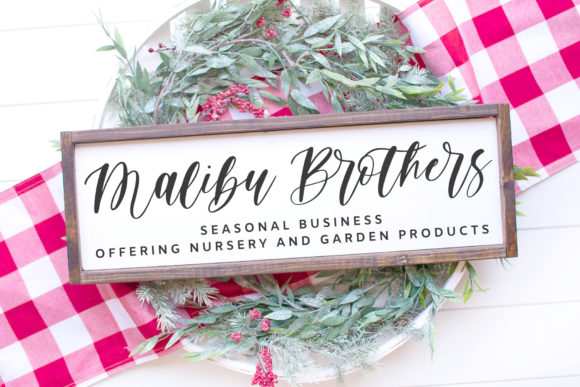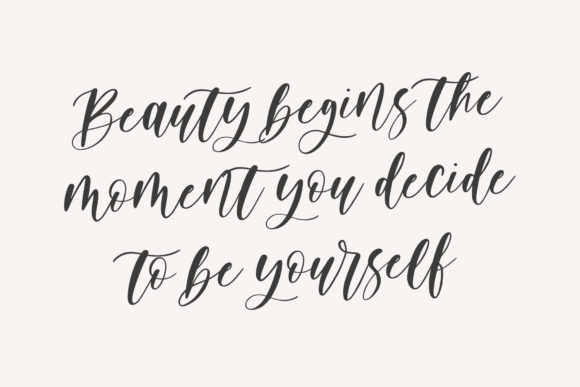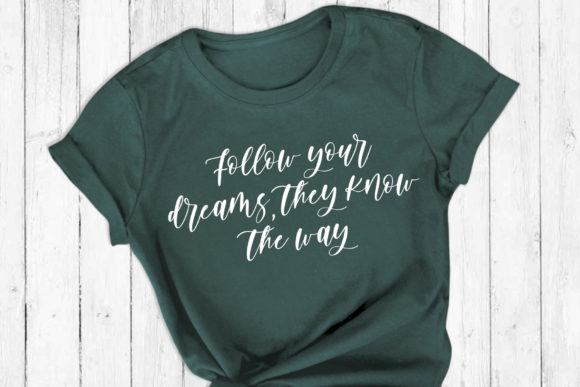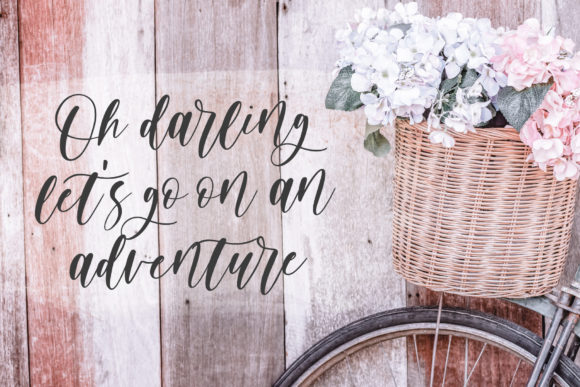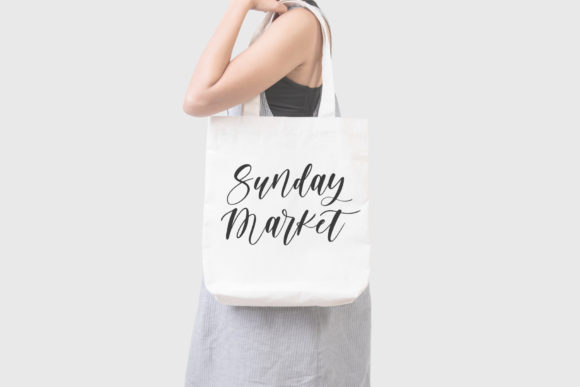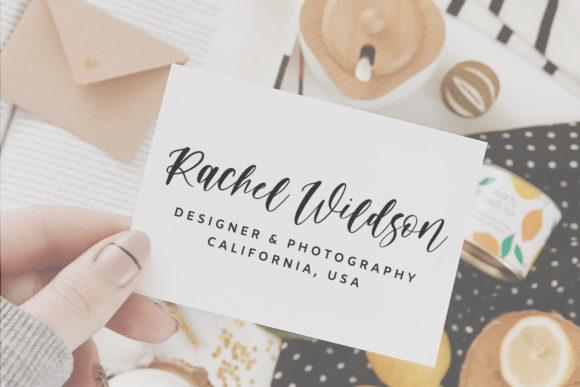
Introduction to Apricot Farmhouse Font
Have you ever been working on a creative project and struggling to find the perfect font to give it that extra special touch? I know I have. As a designer, I’ve spent countless hours browsing through font libraries, searching for that one font that will elevate my design to the next level. And then, it happened – I stumbled upon the stunning Apricot Farmhouse Font.
With its beautiful, flowing script and timeless classic calligraphy style, the Apricot Farmhouse Font is the perfect addition to any high-quality design project. Not only does it offer a unique and creative touch, but it’s also incredibly versatile, making it a valuable resource for designers of all levels.
Key Features of Apricot Farmhouse Font
- High-quality, hand-drawn design ideal for creative projects, such as invitations, greeting cards, and scrapbooking.
- Features a unique, distressed aesthetic, adding a touch of vintage charm to any design project.
- Designed with a large x-height, making it highly legible and suitable for use in a variety of contexts, from small text to large headlines.
Honest Review: Apricot Farmhouse Font
I recently stumbled upon the Apricot Farmhouse Font and I must say, I’m impressed. This beautiful, high-quality design resource is perfect for any creative project that needs a warm, inviting touch.
What works well: ✨ The font’s elegant, cursive script is perfect for titles, headings, and even body text. The transparent background makes it easy to use on any background, adding an extra layer of flexibility to your design. Plus, it’s completely free to download, which is always a bonus!
- Perfect for creative projects, such as wedding invitations, menus, or product labels
- Elegant, cursive script that’s perfect for titles and headings
⚠️ One limitation is that the font may not be suitable for very formal or professional projects, as it has a more rustic, farmhouse feel. However, for most creative projects, this font is a great choice.
Overall, I’m really impressed with the Apricot Farmhouse Font. Its unique style and high-quality design make it a valuable addition to any designer’s toolkit. I’d definitely recommend it to anyone looking for a beautiful, free font for their next creative project.
The Apricot Farmhouse Font is commonly used in a variety of design contexts, including:
Food and beverage branding
Home decor and furniture design